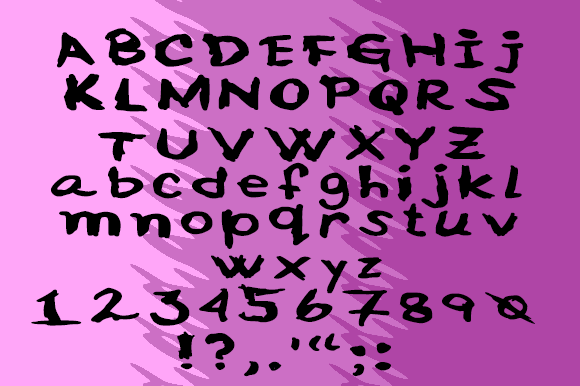
Rydia Font
Rydia was inspired by children. It comes in two versions, one that’s spaced out like the handwriting of a young child, and one “smooshed” version, which is a tad more refined.